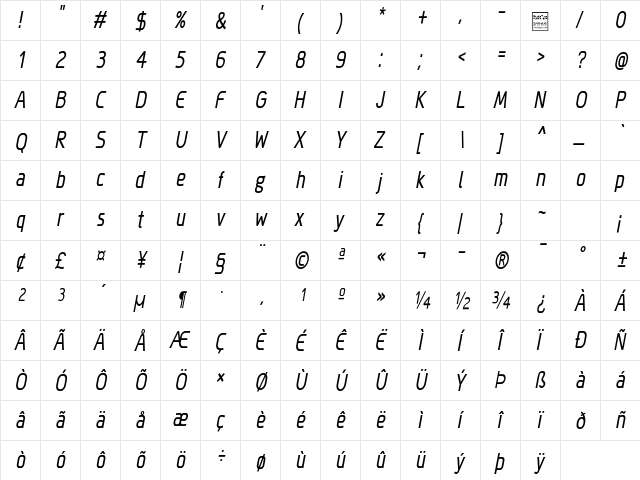
Megi Sans Narrow Italic
Design Context for Megi Sans Narrow Typeface
Megi Sans Narrow offers clean, dependable letterforms without strong stylistic allegiance, making it a practical choice for designers who need flexibility. The slanted form adds forward momentum and visual energy. Its narrow stance lets it pack a punch even in space-constrained designs.
Pro Tip: Try Megi Sans Narrow for annotation and caption copy alongside an upright companion — the contrast in angle creates a dynamic but ordered typographic system.